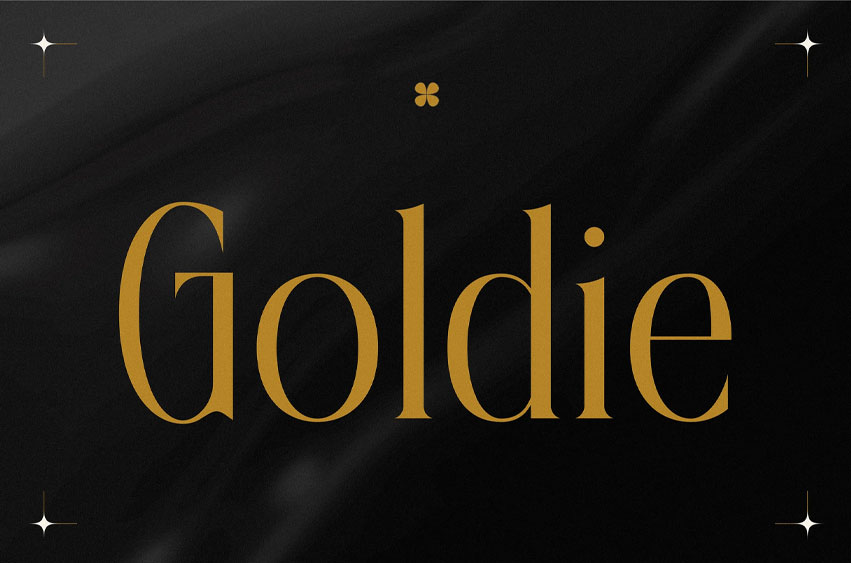
Goldie Font
Goldie Font is an elegant display typeface that blends modern geometry with timeless sophistication, designed for fashion houses, jewelry brands, and high-end editorials. Its graceful contrast, refined terminals, and serene rhythm create a visual harmony that feels both classic and contemporary. The letterforms balance curved elegance and structured proportion, making every word radiate confidence and class.
Whether it’s a couture campaign headline, a boutique perfume label, or an elegant lifestyle magazine, Goldie sets the tone for premium storytelling. Its polished character aesthetic elevates brand perception, crafting a design language that commands attention and evokes sophistication without shouting. Perfect for logos, fashion lookbooks, packaging, and social media branding that seek a refined and emotive presence.
Key Features: Elegant Design Craftsmanship
• High-contrast letterforms with balanced vertical proportions
• Smooth curves and modern serifs for timeless charm
Versatile for Elegant Branding
• Ideal for fashion, jewelry, and editorial art direction
• Works beautifully on print, packaging, and digital campaigns
Refined Readability
• Designed for legibility at both headline and subtext scales
• Subtle rhythm enhances flow and elegance in layout